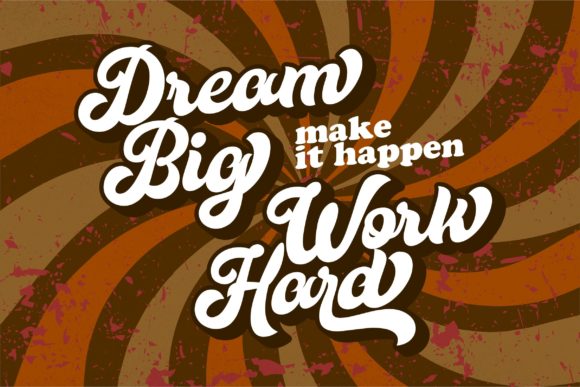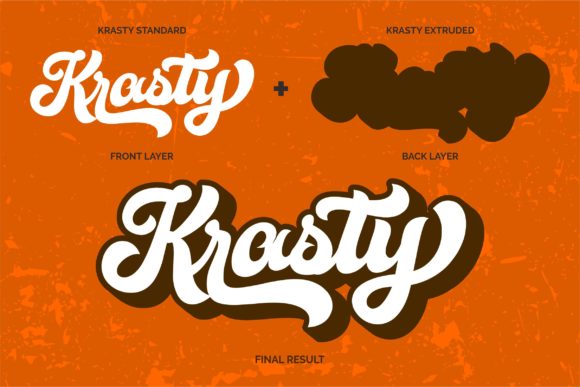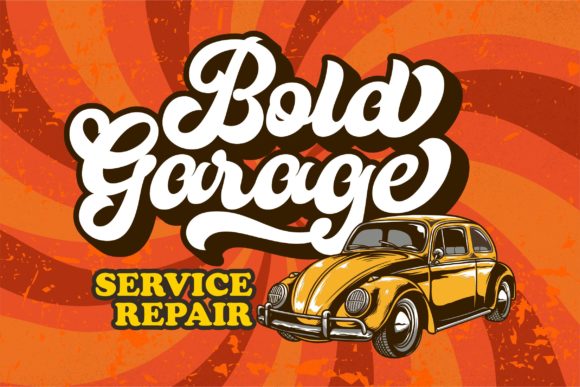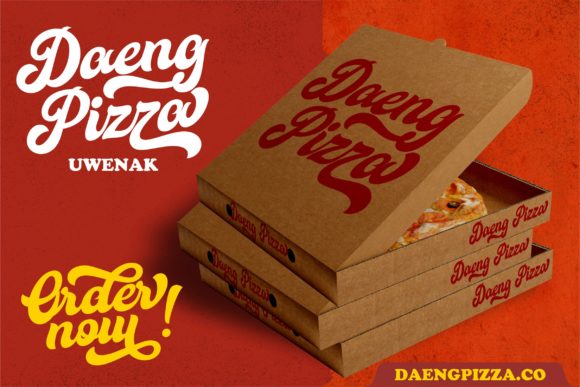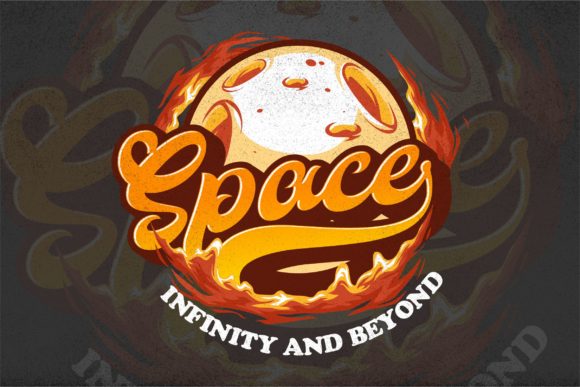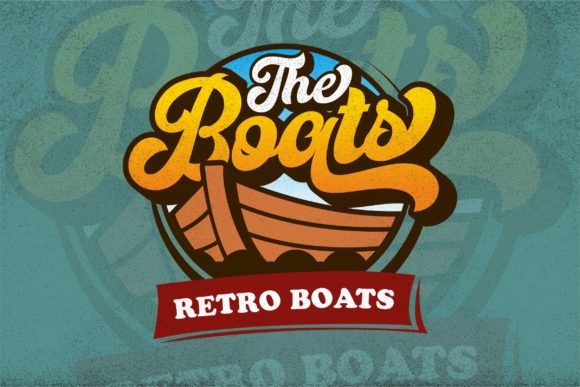
Introduction to Krasty Font
Unique retro inspired letters from the past, this typeface has an extrusion version so you can create unique retro effects very easily.
Try it on your next project and give it more personality .
Krasty Font offers exceptional quality and versatility, making it a valuable addition to your design toolkit. Whether you’re creating for personal projects or commercial use, Krasty Font delivers professional results.